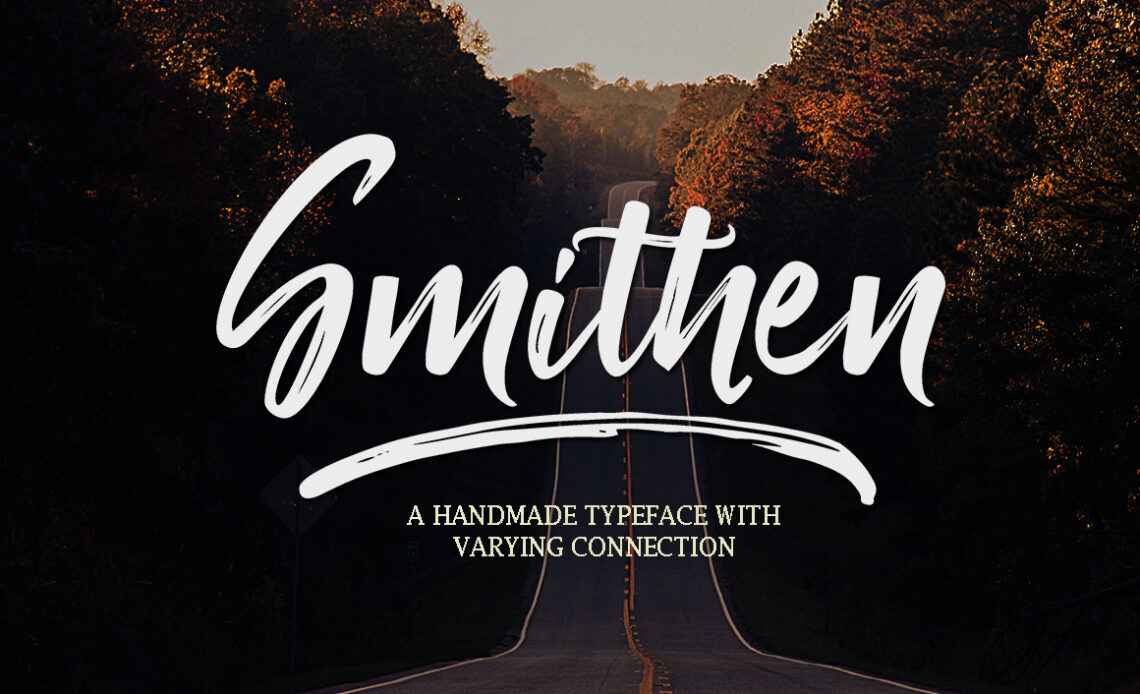
Step into the enchanting realm of Smithen Font, a script font family that dances upon the page like a delicate calligraphy masterpiece. Adorned with the textures of a brush and ink, Smithen has been meticulously handcrafted on paper and refined to perfection in the realm of digital art. Each letterform is a graceful stroke, whispering stories of artistry and passion.
Capture the allure of handwritten elegance for your next design project with Smithen. Its delicate curves and sweeping lines are reminiscent of calligraphy masters, lending an air of sophistication and timeless charm to any creation. Whether you're a designer, a writer, or a dreamer seeking a unique expression, Smithen holds the key to unlocking your creative potential.
Feel the warmth of Smithen's embrace as it transforms your words into works of art. Its handwritten nature lends a personal touch that resonates with audiences, forging a connection that transcends the screen. Celebrate individuality and make a lasting impact with every design.
With Smithen, your designs will radiate authenticity and elegance. Embrace the beauty of brushstrokes and inked textures that speak volumes about your dedication to detail and artistry. Explore the endless possibilities of Smithen, a font family that will elevate your projects to new heights.